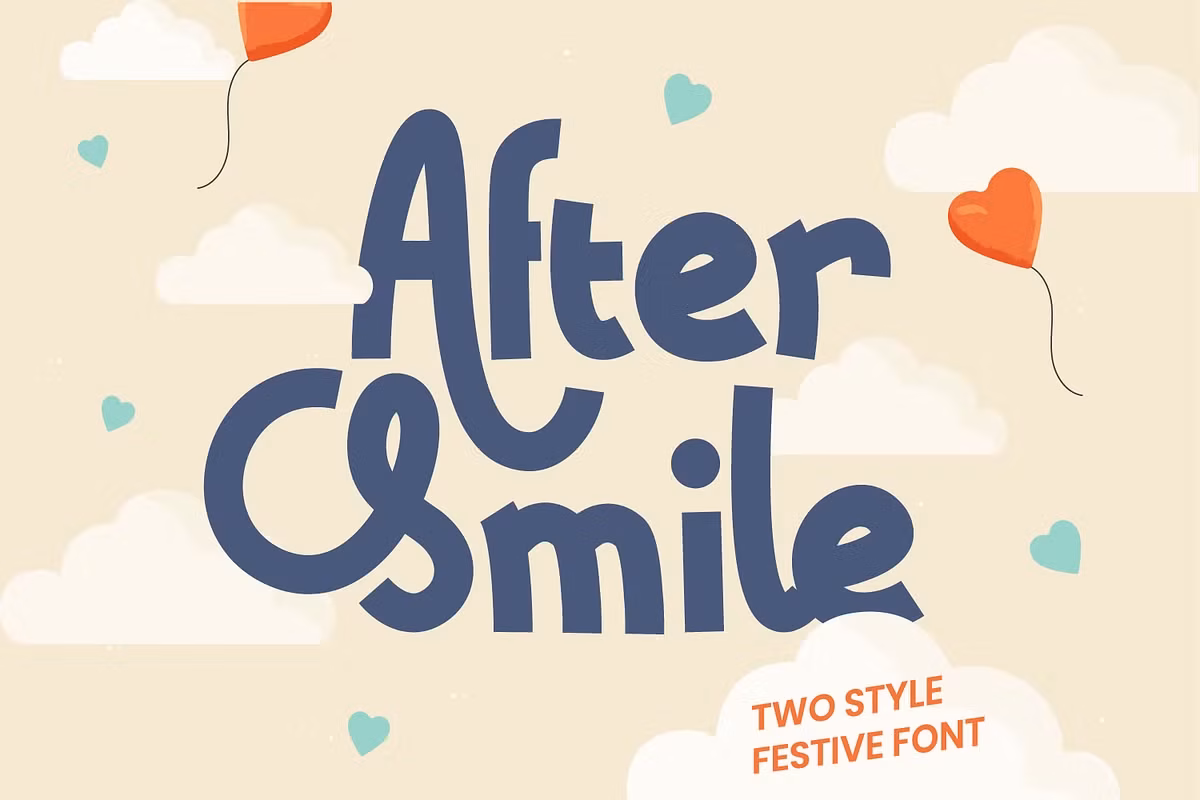
After Smile Festive Two Fonts Free Download
After Smile Festive Two Fonts Free Download is a cheerful and charming font duo that brings celebration to life. Featuring a playful handwritten script paired with a clean, complementary sans serif, this festive combo is perfect for holiday cards, party invitations, product packaging, greeting tags, and joyful social media graphics.
The script adds a personal, whimsical touch, while the sans serif keeps things balanced and modern. Together, they create a dynamic and heartwarming look that works beautifully for seasonal designs and all things merry and bright.
Whether you’re designing for Christmas, New Year, birthdays, or any happy occasion, After Smile makes every message shine.